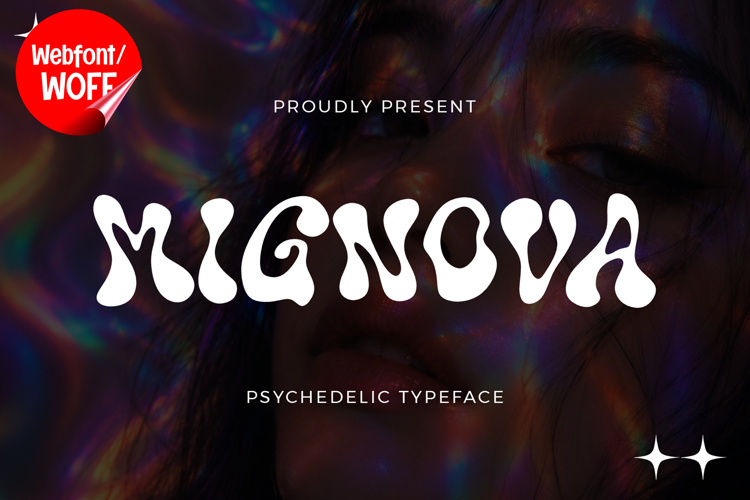
Mignova - Groovy Psychedelic Webfont
Mignova is a psychedelic wavy retro webfont designed to bring expressive groovy aesthetics into modern digital experiences. Inspired by vintage psychedelic artwork, funky typography culture, retro music posters, and colorful artistic movements, Mignova delivers bold visual personality with flowing organic letterforms and hypnotic retro energy.
The font combines wavy curves, melting shapes, and artistic rhythm to create typography that feels playful, nostalgic, and visually unforgettable. Suitable for websites, digital branding, online campaigns, music promotions, social media graphics, creative presentations, and retro-inspired user interfaces.
Mignova transforms digital typography into artistic visual statements filled with psychedelic atmosphere and funky retro charm. The bold flowing structure allows headlines to stand out clearly while maintaining stylish readability across different screen sizes.
- Wavy Psychedelic Style
- Funky Retro Aesthetic
- Smooth Organic Curves
- Artistic Display Typography
- Unique Retro Personality
- Bold Digital Presence
- Website Headers
- Online Branding
- Retro Landing Pages
- Music Promotions
- Festival Graphics
- Social Media Posts
- Creative Campaigns
- Vintage Branding
- Digital Posters
- Artistic Presentations
- YouTube Covers
- Fashion Websites
- Event Promotions
- Experimental Layouts
Mignova creates powerful visual atmosphere for digital branding and online creative projects. The psychedelic curves and groovy flow make typography feel alive, artistic, and highly expressive.
Its retro-inspired structure works beautifully in colorful layouts, vintage-themed interfaces, music visuals, artistic campaigns, and modern experimental branding. Whether used in bold oversized headlines or decorative typography compositions, Mignova maintains strong artistic personality.
The multilingual support helps create global-friendly visual communication while numbers and punctuation provide complete typography flexibility for professional digital projects.
Inspired by psychedelic culture, vintage music aesthetics, retro visual trends, and funky artistic expression, Mignova brings nostalgic groovy energy into modern web typography.
Suitable for creators seeking unique display typography with expressive retro character and strong visual identity.